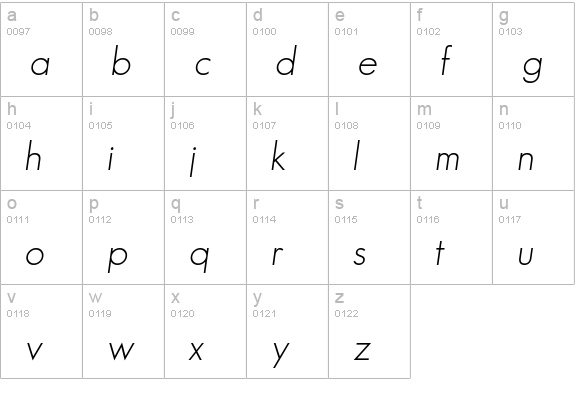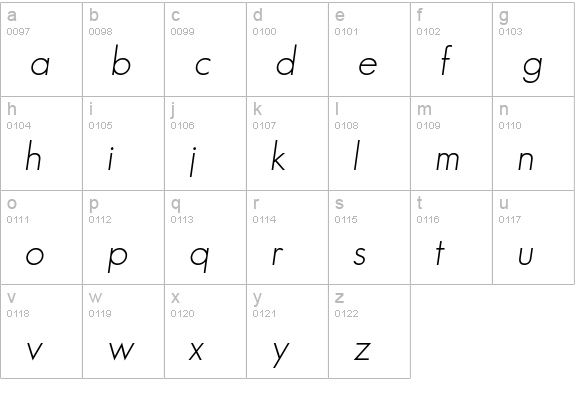
GeosansLight-Oblique Font Details
GeosansLight-Oblique is a distinctive, italic variant in the GeosansLight typeface family \xE2\x80\x94 well suited to design and typography projects.
GeosansLight-Oblique is a modern and stylish font that exudes elegance and sophistication. With its sleek and slanted design, this font is perfect for adding a touch of flair to any project. The unique oblique style adds a dynamic and eye-catching element to your text, making it stand out from the crowd. One of the best things about GeosansLight-Oblique is that it is available for free download at FontsMarket.com. This means that you can easily access this beautiful font without having to spend a penny. Whether you are working on a personal project or a professional design, GeosansLight-Oblique is a fantastic choice that will elevate your work to the next level. Embrace the modern and elegant design of GeosansLight-Oblique and make a statement with your typography. Download this stunning font for free today and see the difference it can make in your projects.